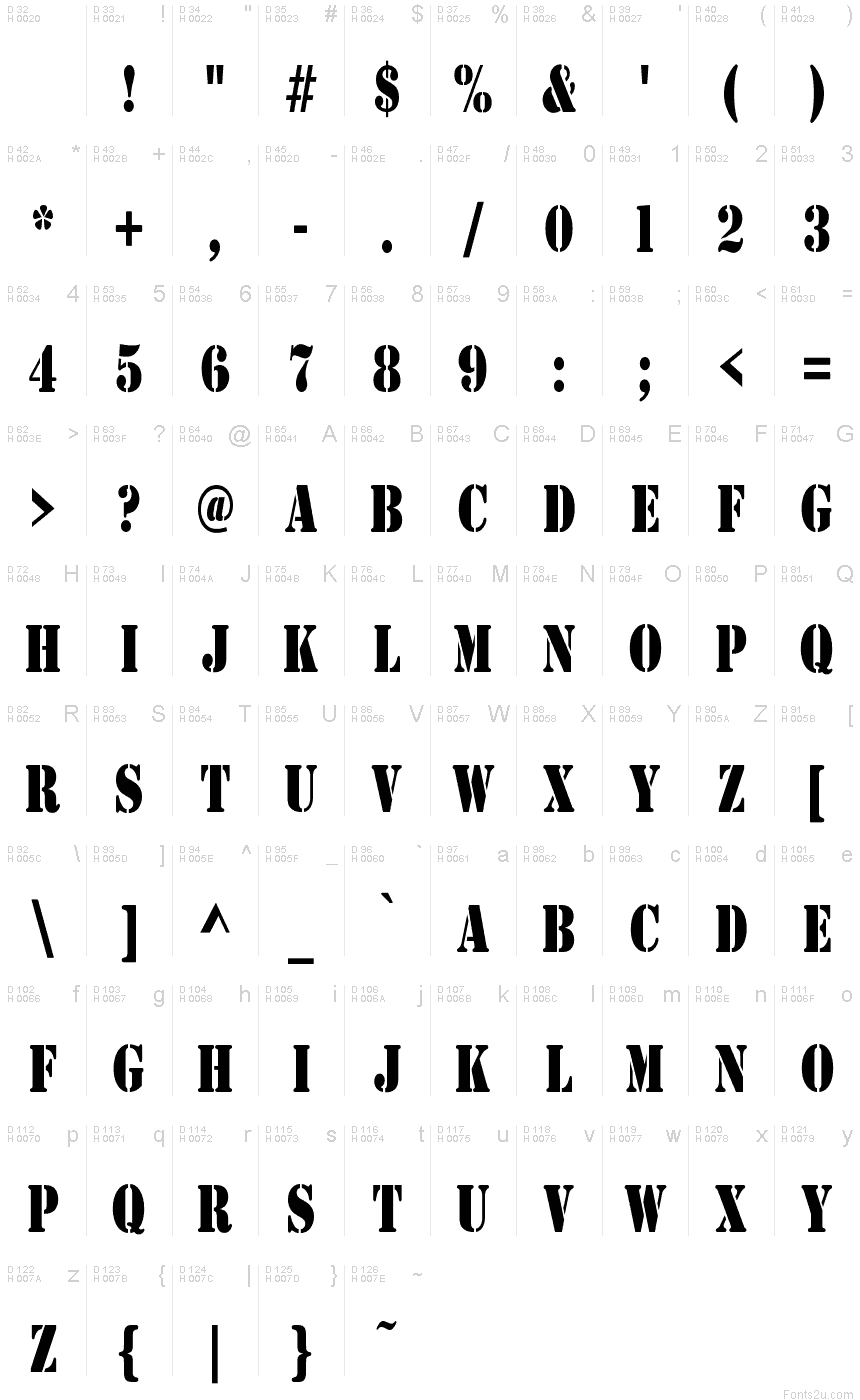
Army Condensed
Army Condensed font by ALLTYPE is a free military display font with a drilled-in, no-nonsense presence. Its tall, tightly packed shapes and sharp wedge-like cuts echo stamped crate markings and vintage barracks signage, giving headlines a disciplined, forceful look that still fits neatly into narrow spaces.
Using Army Condensed works beautifully for recruitment posters, team logos, gym branding, tactical apparel, event flyers, game titles, and rugged packaging. Keep it large, and pair this free font with a plain sans serif for body copy so its compact rhythm and commanding texture do the heavy lifting.